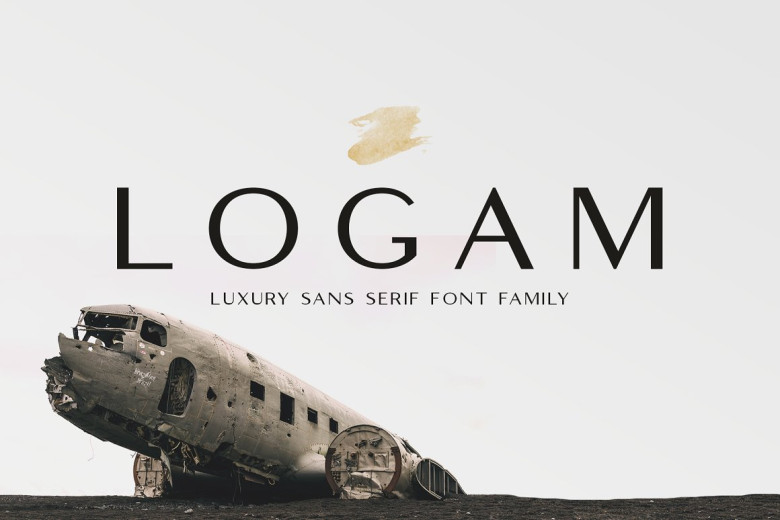
Logam Font
Logam – is a luxury sans serif font family whose design refers us to the style of modern sans serif. The distinctive features of Logam are the relatively low contrast of strokes, the slightly squarish shapes of round characters and the emphasized business like simplicity.
Logam features an original stylistic set which, when turned on, adds features of typical pointed-pen sans serif to some of the lowercase characters. In addition, Logam has small capitals for Latin and as well as several interesting ligatures.
Logam has been crafted from scratch with a structural logic of its own: a fusion of pure geometry and optical balance. By combining a variety of styles Logam – is suitable for Logo, greeting cards, quotes, posters, branding, name card, stationary, design title, blog header, art quote, typography.
Logam Sans Serif Font